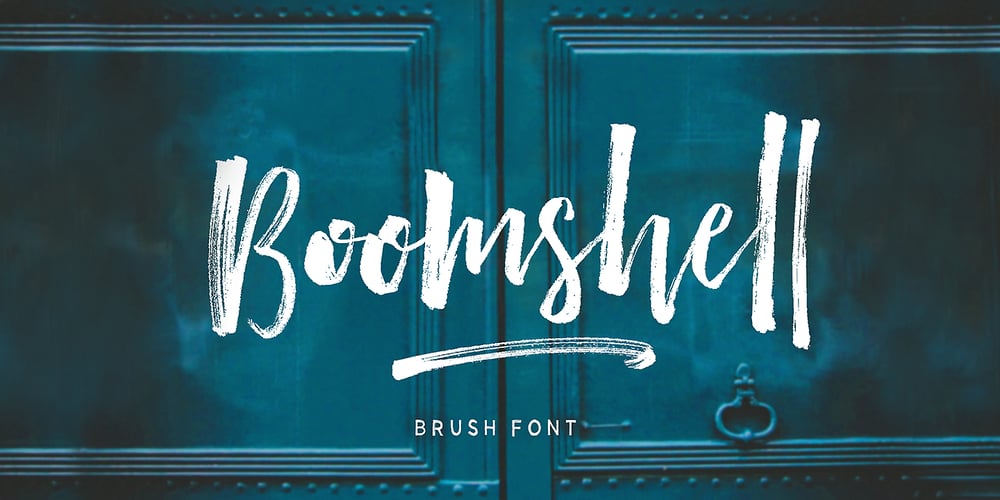
Boomshell Font Family was designed by Mauli Zari and published by Dhan Studio. Boomshell contains 4 styles and family package options. Boomshell is a very eye-catching font with natural-looking textural strokes, plus a few ligatures and swash additions. Perfect for project branding, logos, product packaging, posters, invitations, greeting cards, news, blogs, everything including personal charm, etc.